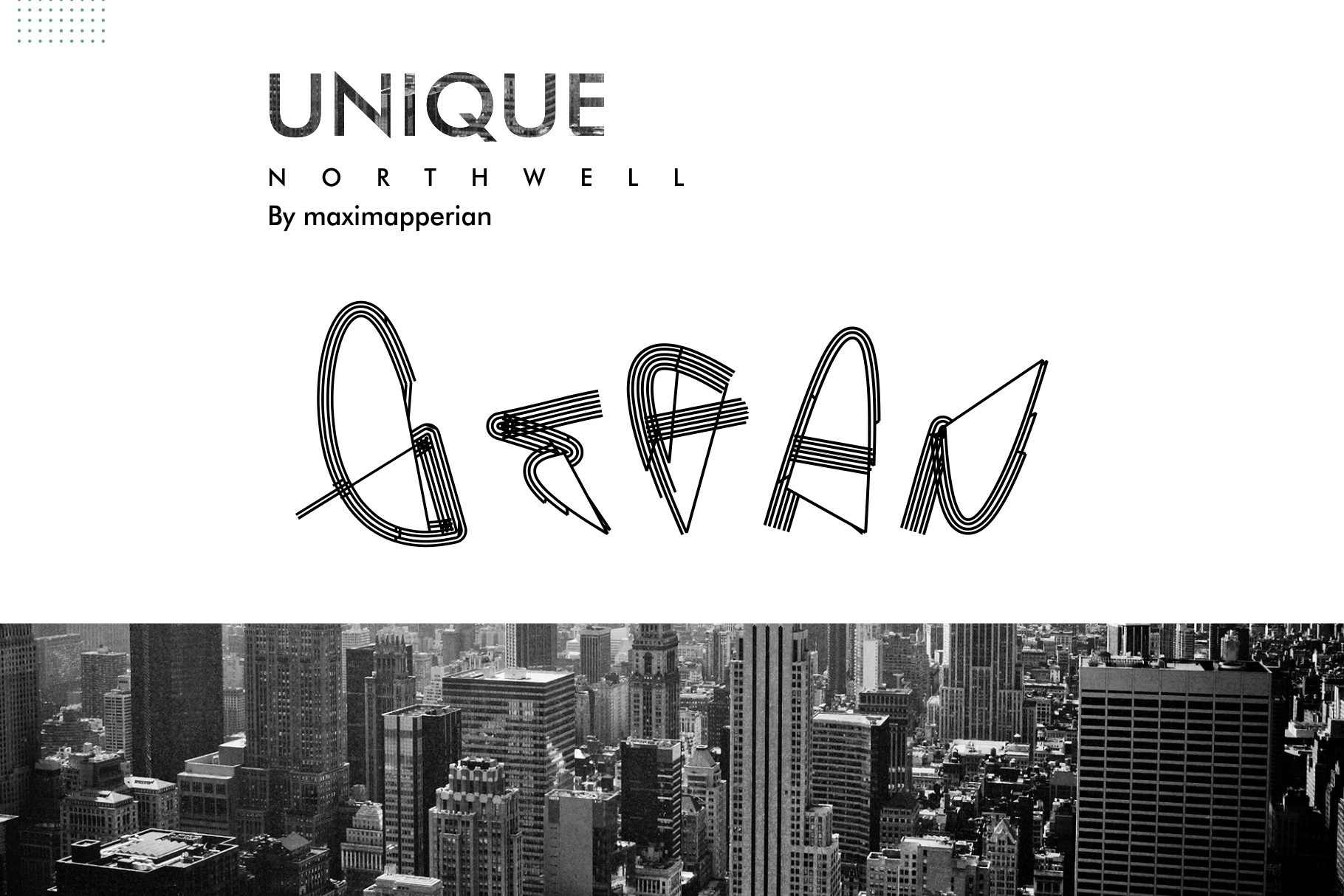
Gefan Font
Gefan is typeface with refreshing patterns against unusual things, to have charm and character and make it more elegant and exclusive. suitable to use various interests and stay adjust to your needs